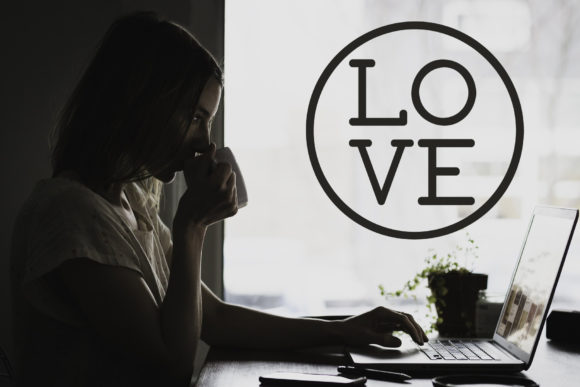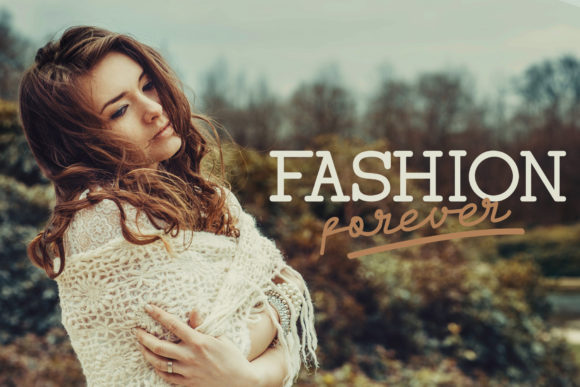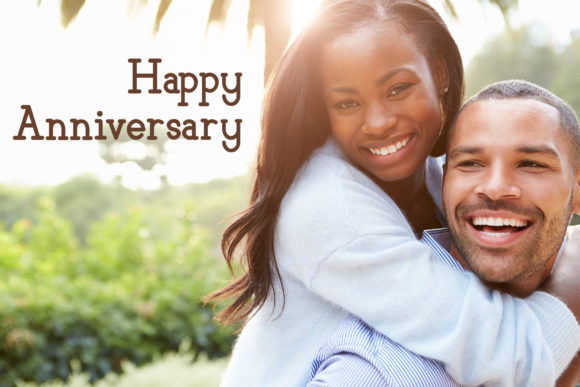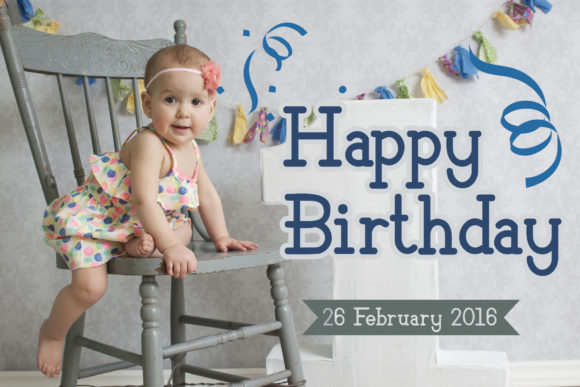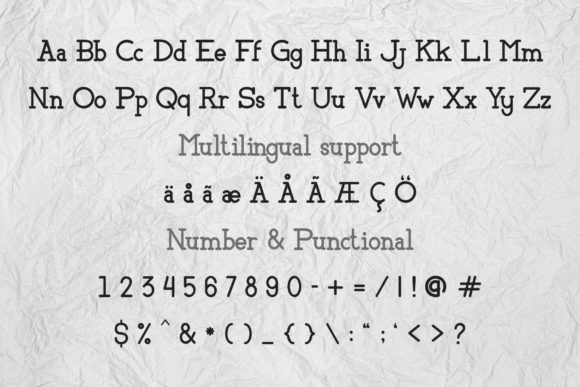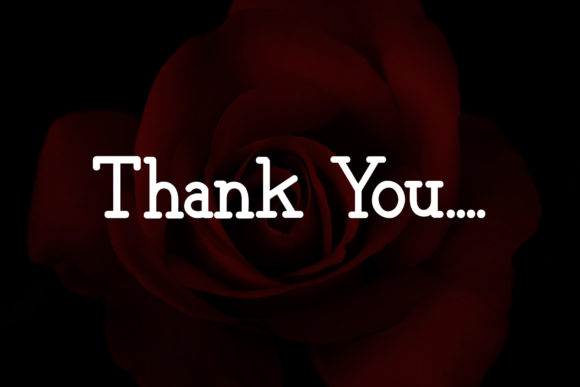
The Flooper Font: A Fun and Happy Serif for Your Creative Projects
Have you ever been in the middle of a design project, and suddenly, you just can’t seem to find the right font? I know I have! It was a sunny Saturday morning when I was working on a greeting card design for a friend’s birthday. I had the perfect concept, the colors were on point, but something was missing – the right font. That’s when I stumbled upon the Flooper font, and my design woes disappeared instantly! 😊
An Honest Review of Flooper Font
The Flooper font has quickly become one of my go-to fonts for creative projects. Here’s what I love about it:
- ✨ Fun and happy vibe that’s perfect for titles, advertising, greeting cards, and magazines
- ✅ Round serif design that adds a touch of playfulness to any project
- ✨ Works well with both digital and print designs
While I absolutely love the Flooper font, there are a few small quirks to be aware of:
- 🤔 Limited language support – it’s best suited for English and other languages that use the Latin alphabet
- ⚠️ Some users may find the font a bit too playful for certain projects, such as corporate branding or formal events
The Story Behind Flooper Font
The Flooper font was designed by a team of creatives who wanted to create a font that would bring a smile to people’s faces. Inspired by classic serif fonts, they added a playful twist to create a unique and fun design. The result is a font that’s perfect for creative projects that need a bit of personality.
| Font Name | Flooper Font |
| Author | anomali.bisu |
Q: What type of projects is Flooper font best suited for?
A: Flooper font is perfect for titles, advertising, greeting cards, magazines, and other creative projects that need a fun and happy vibe.
Q: Is Flooper font available in different languages?
A: Currently, Flooper font has limited language support, primarily for English and other languages that use the Latin alphabet.